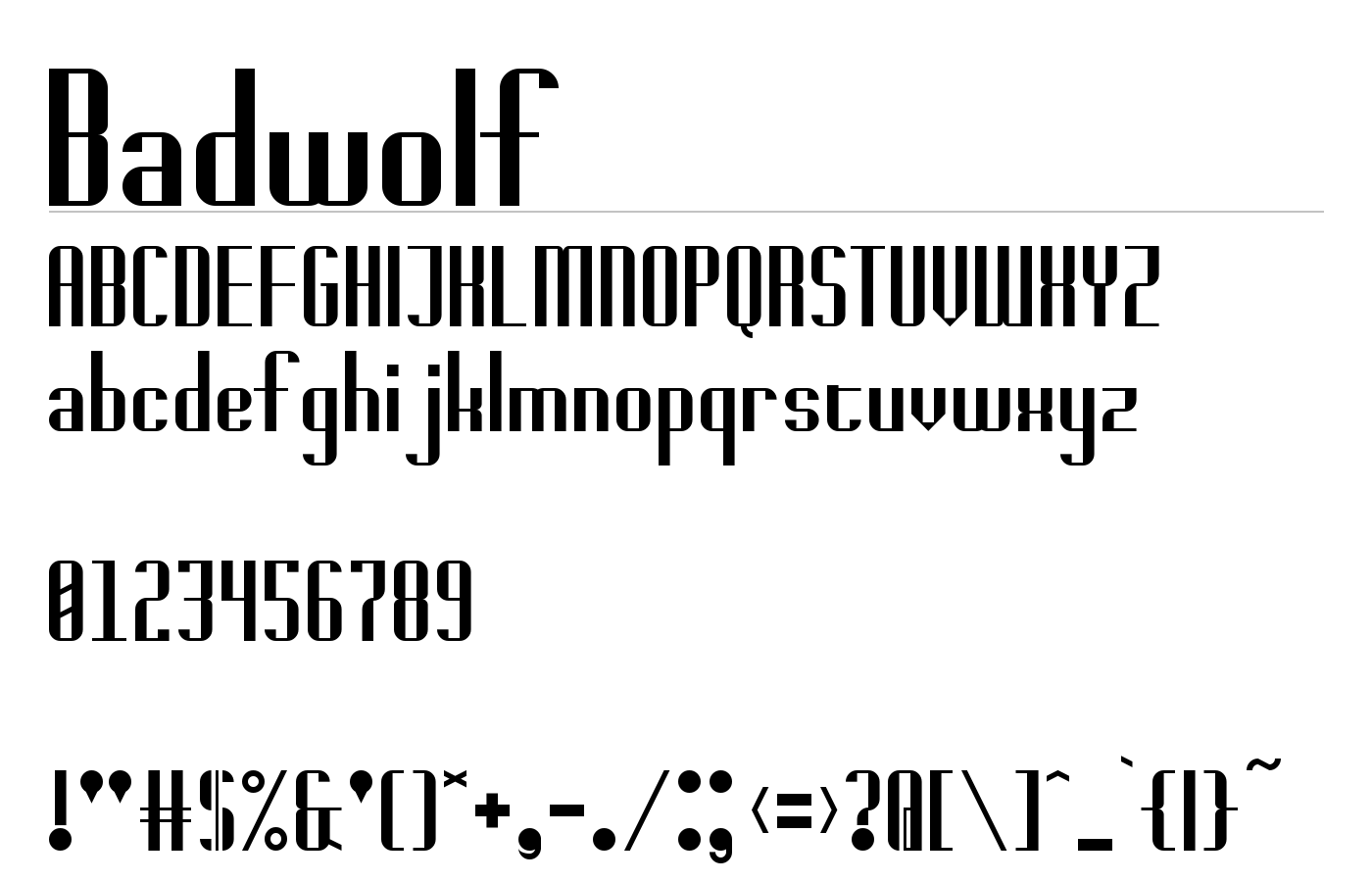
Badwolf is a condensed, geometric sans serif typeface with a modern and edgy personality. Its tall, narrow letterforms feature sharp, angular details and a high contrast between thick and thin strokes, giving it a strong, bold presence perfect for impactful headlines and stylish branding. This font works exceptionally well in fashion, editorial, and poster design where a striking, contemporary look is desired.
Badwolf Font
About Badwolf Font